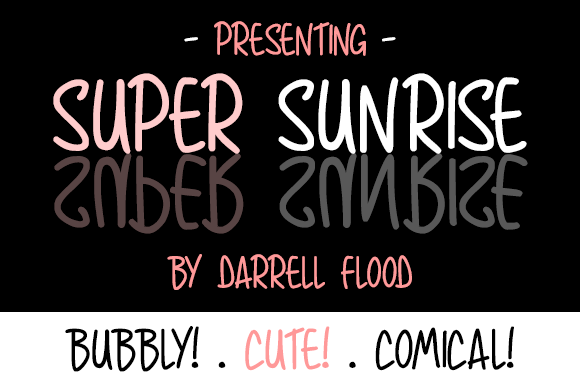
Super Sunrise Font
The Super Sunrise is a casual, ultra loose hand-written font in an expressive style. Perfect for signs, classrooms, and general cartoon settings!